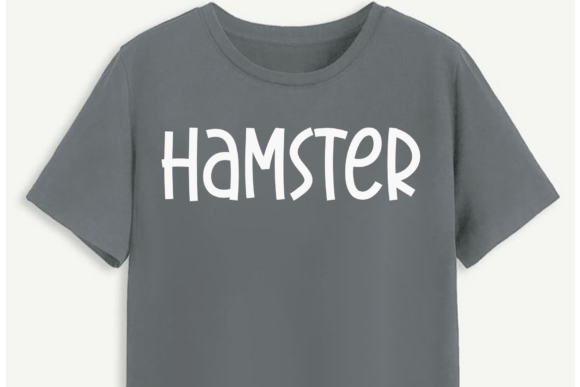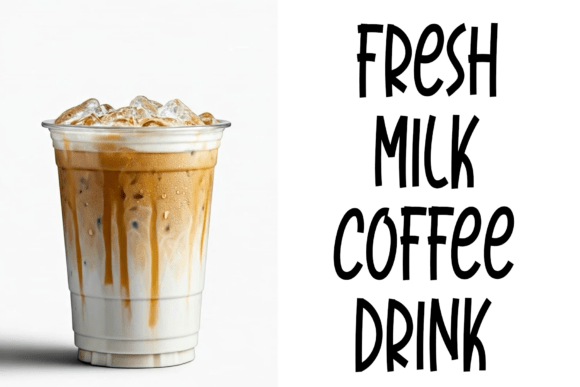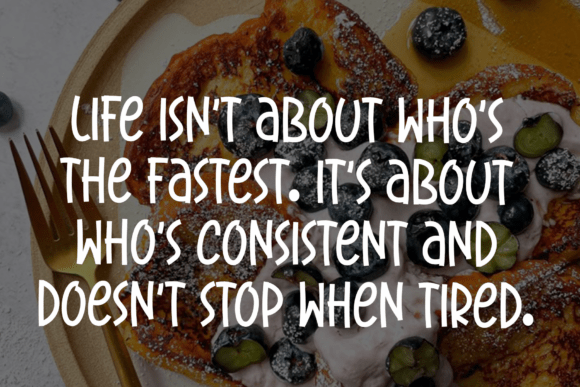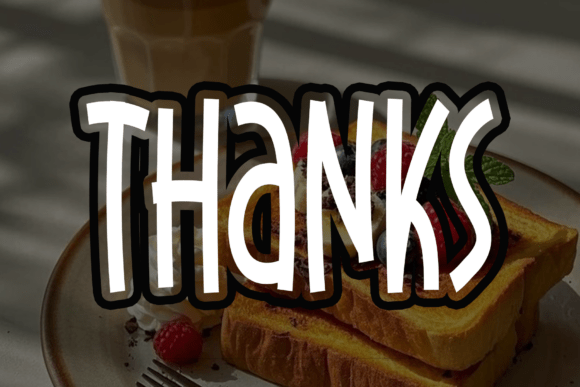
The Perfect Brushstroke for Your Next Creative Project
There’s nothing quite like the thrill of hitting ‘publish’ on a new design project. The rush of excitement, the sense of pride, and the knowledge that your vision is now out in the world for all to see. But, let’s be real – it’s not just about hitting ‘publish’. It’s about creating something truly special, something that captures the essence of your brand and leaves a lasting impression on your audience.
Enter the Breakly Designer Font, a game-changing addition to the world of modern handwritten fonts. This stunning new typeface is designed to evoke a sense of clarity and crisp elegance, making it the perfect choice for designers looking to add a touch of sophistication to their next project. With its clean and approachable style, the Breakly Designer Font is ideal for everything from travel photography to branding for outdoor gear, and sophisticated web design.
Breakly Designer Font Key Features
- Unique Characteristics: Breakly Designer Font features a modern, clean design with a high x-height, making it ideal for body text and headings.
Breakly Designer Font Review
I recently had the chance to work with the Breakly Designer Font, and I must say it’s been a mixed bag. On the one hand, there are some great things about this font. ✨ The clean and modern design makes it perfect for a wide range of projects, from logos to branding materials. ✨ The font is also highly customizable, with a wide range of styles and sizes available.
However, I have to say that there are some limitations to the Breakly Designer Font. ⚠️ One of the biggest issues I’ve encountered is the font’s lack of consistency across different devices and browsers. ⚠️ I’ve seen some formatting issues and uneven letter spacing, which can be frustrating to deal with.
Another issue I’ve noticed is the font’s limited support for certain languages and characters. ⚠️ While it’s great for English and some European languages, it falls short for languages like Chinese or Japanese.
Overall, I would say that the Breakly Designer Font is a solid choice for designers who need a clean and modern font for their projects. However, it’s not without its limitations, and you may need to do some extra work to get it to look its best.
- Pros: clean design, highly customizable, perfect for logos and branding materials
- Cons: inconsistent formatting, limited language support
Breakly Designer Font: A Practical Application Guide
Getting the Most Out of Breakly Designer Font
For optimal results, use Breakly Designer Font in conjunction with other design elements that complement its modern and sleek aesthetic. Experiment with different font sizes, colors, and combinations to create visually appealing designs.
Breakly Designer Font is ideal for modern and creative projects, such as:
– Infographics
– Digital marketing materials